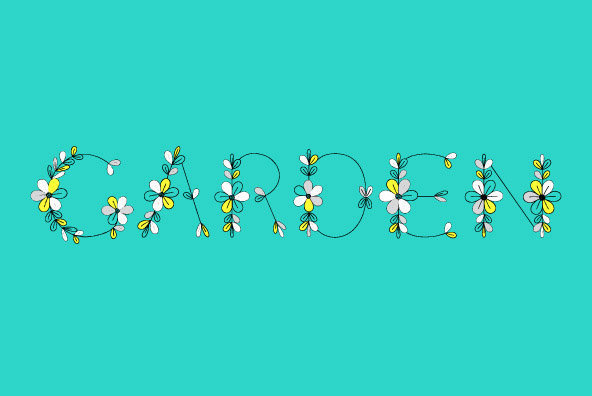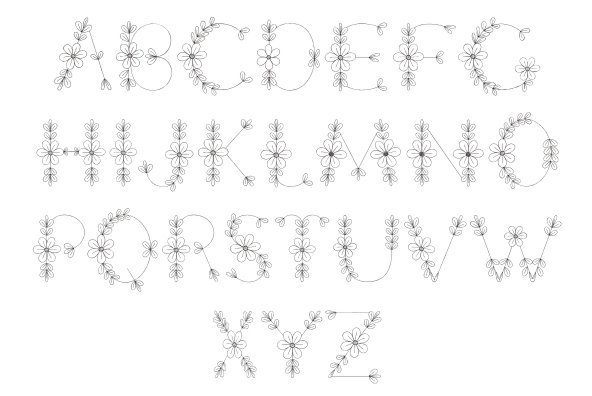
Menina Formosa
Meninas are the new comprehensive collection of innovative craft alphabets researched in rare cross-stitch booklets from 1850 to 1930. This alphabet series was entirely designed by hand, without the use of auto-tracing, by Iza W, from Intellecta Design.